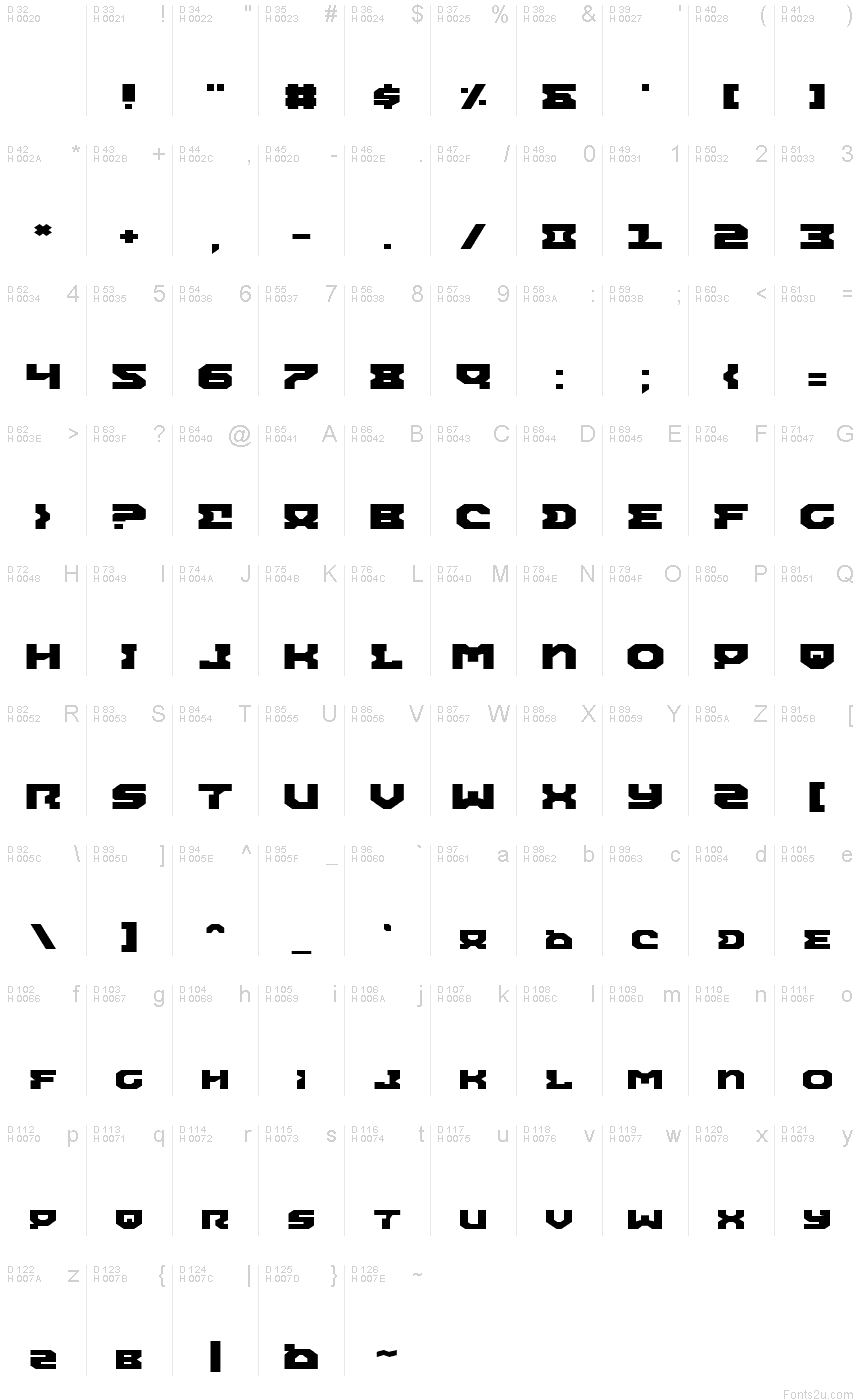
Airacobra Expanded
Airacobra Expanded font by Iconian Fonts is a free techno display typeface that looks like it was cut from armored starship panels. Wide, blocky letters lock together with sharp angles and beveled corners, creating a dense, industrial rhythm that reads like a futuristic title card. The tight spacing and solid black forms give every word serious weight, as if it’s stamped into metal rather than printed on a screen.
Using Airacobra Expanded, headlines feel engineered rather than just typed, which makes it shine on game logos, esports branding, sci-fi posters, tech event flyers, and YouTube or Twitch graphics. This free font also works beautifully for album art or app splash screens where you want instant “high-tech” impact. Keep it large for legibility, and pair it with a clean geometric sans for body text to keep the layout sharp and readable.